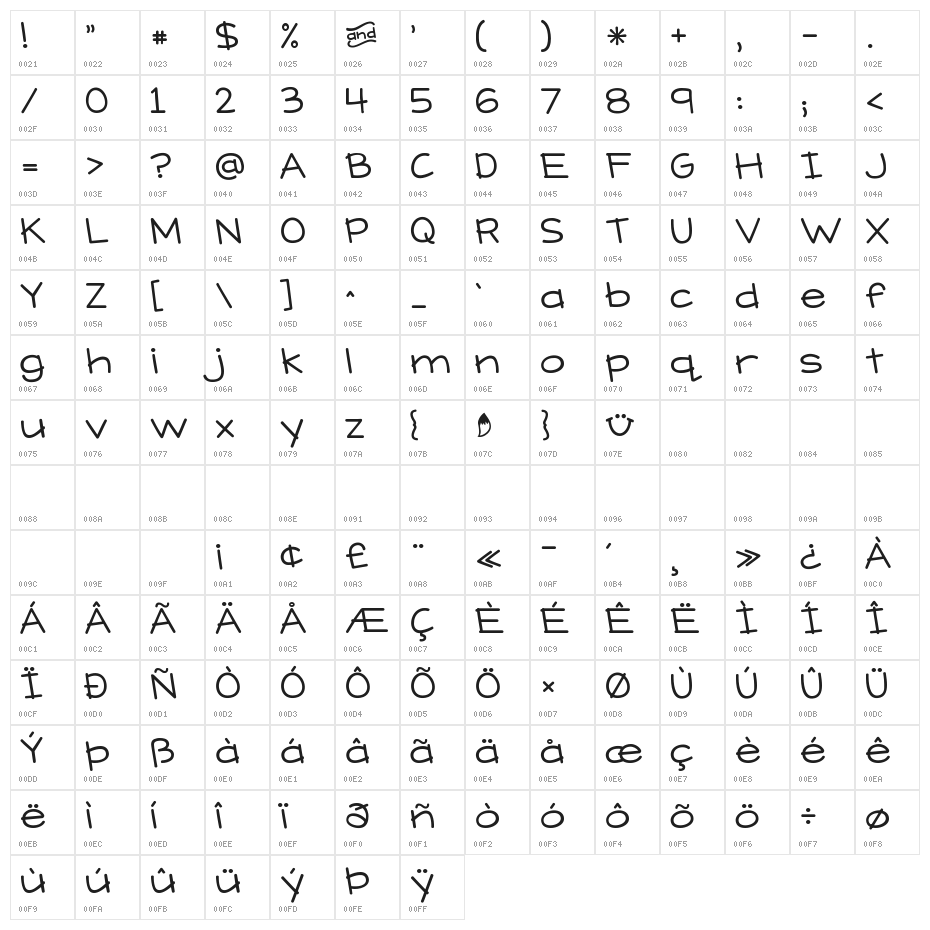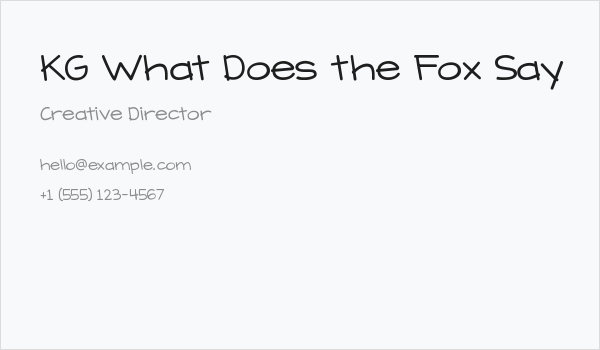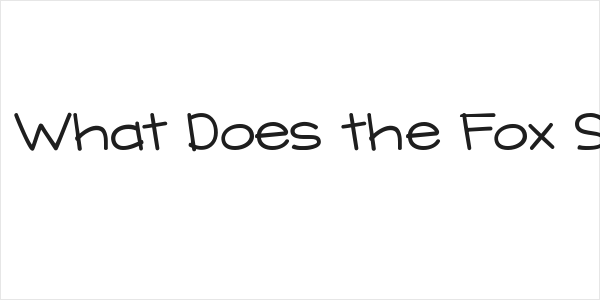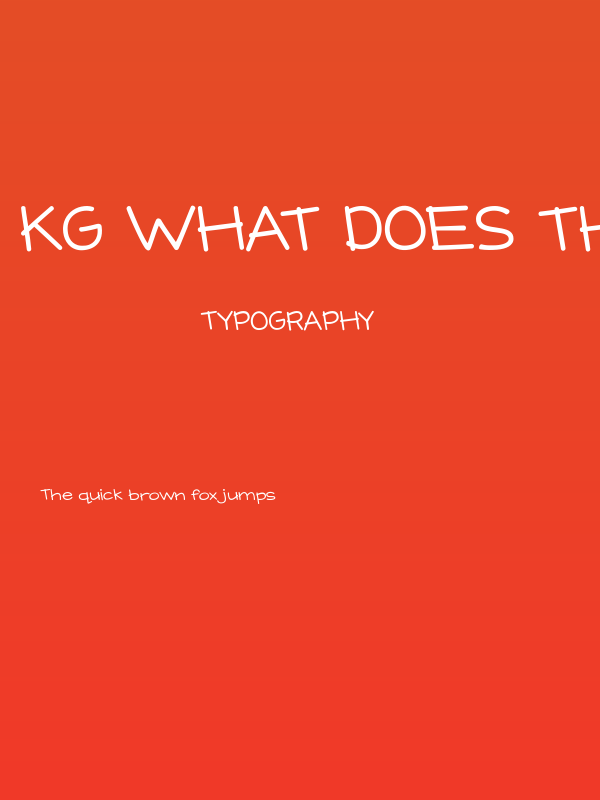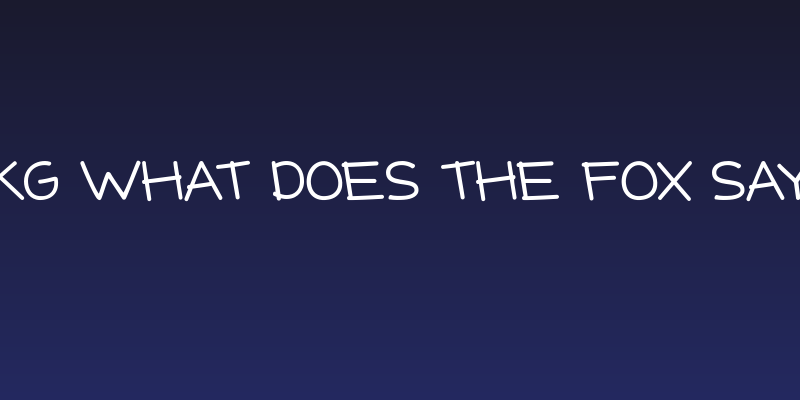
KG What Does the Fox Say Font
KG What Does the Fox Say Description
This playful and whimsical font features a handwritten style with a casual, friendly appearance. The characters are slightly rounded with a consistent stroke width, giving it a smooth and approachable look. The uppercase and lowercase letters maintain a uniform height, creating a harmonious balance. The numerals and special characters are designed to complement the overall style, adding to its charm. This font is perfect for projects that require a touch of fun and creativity, such as children's books, greeting cards, and playful branding materials.
| Proposed Projects | Ideal for children's books, greeting cards, playful branding, and creative projects. |